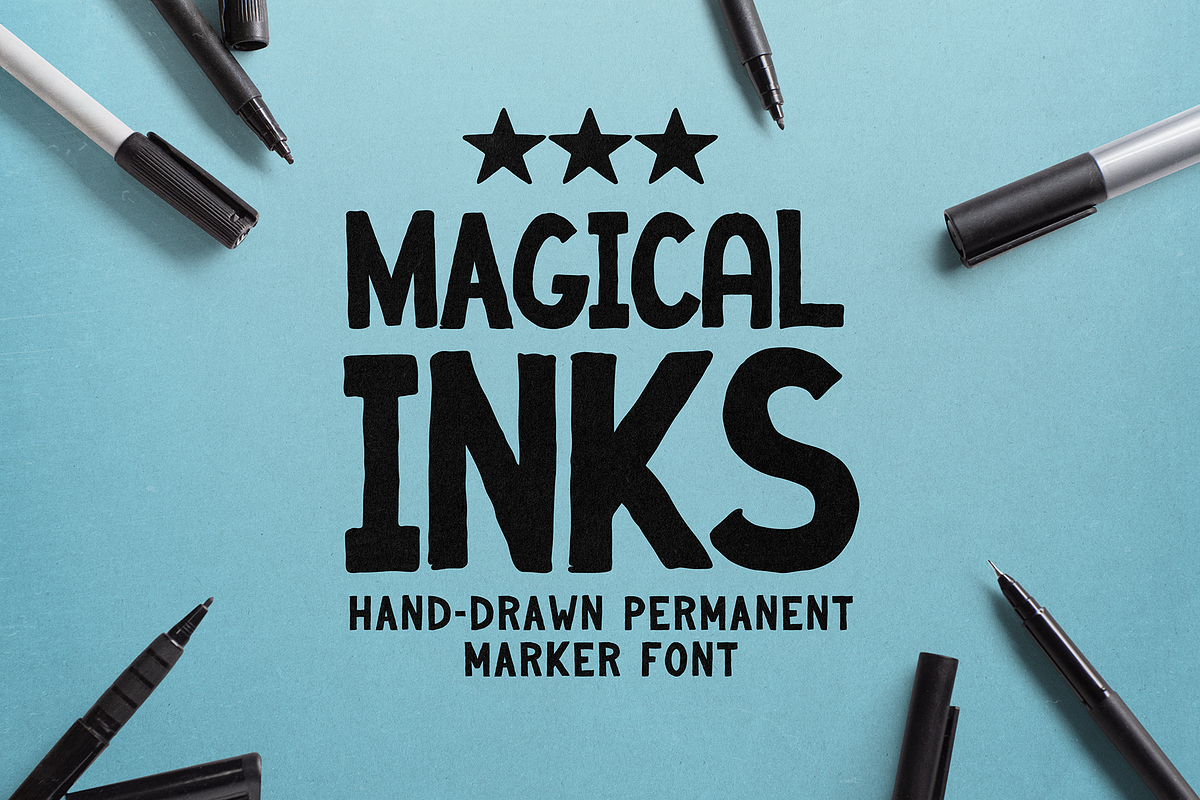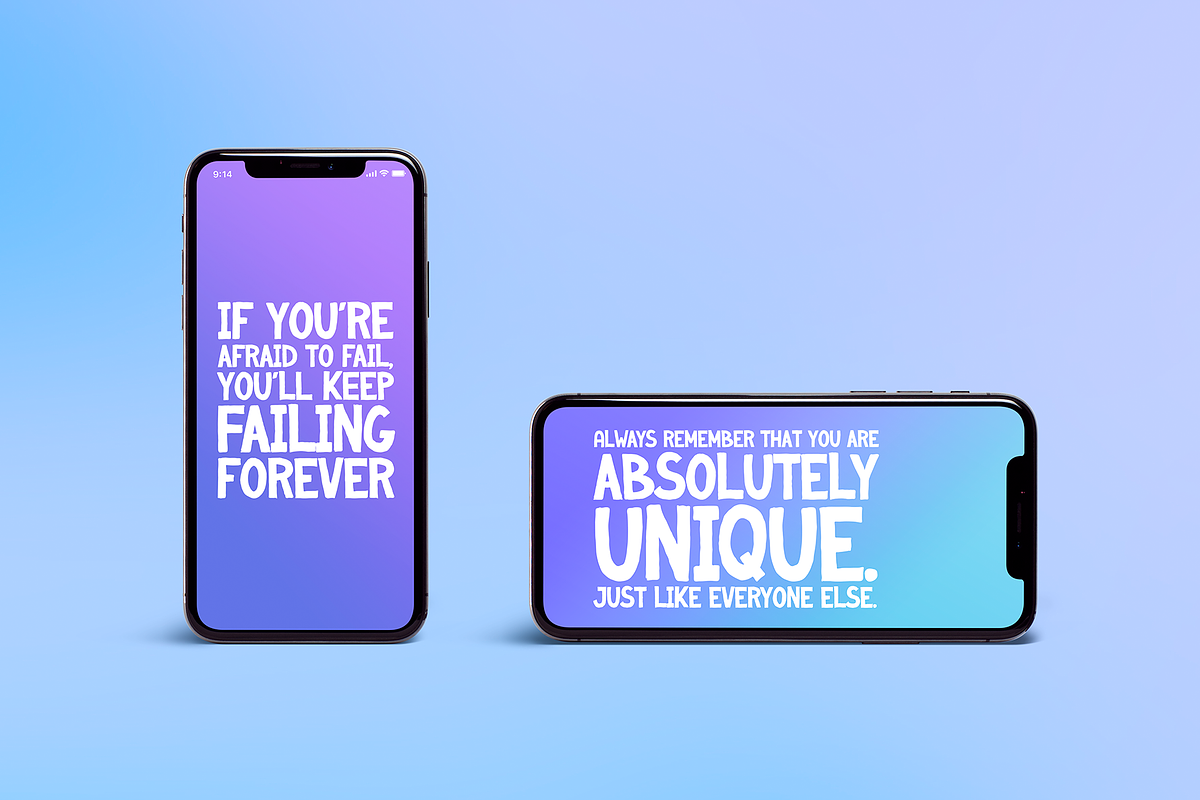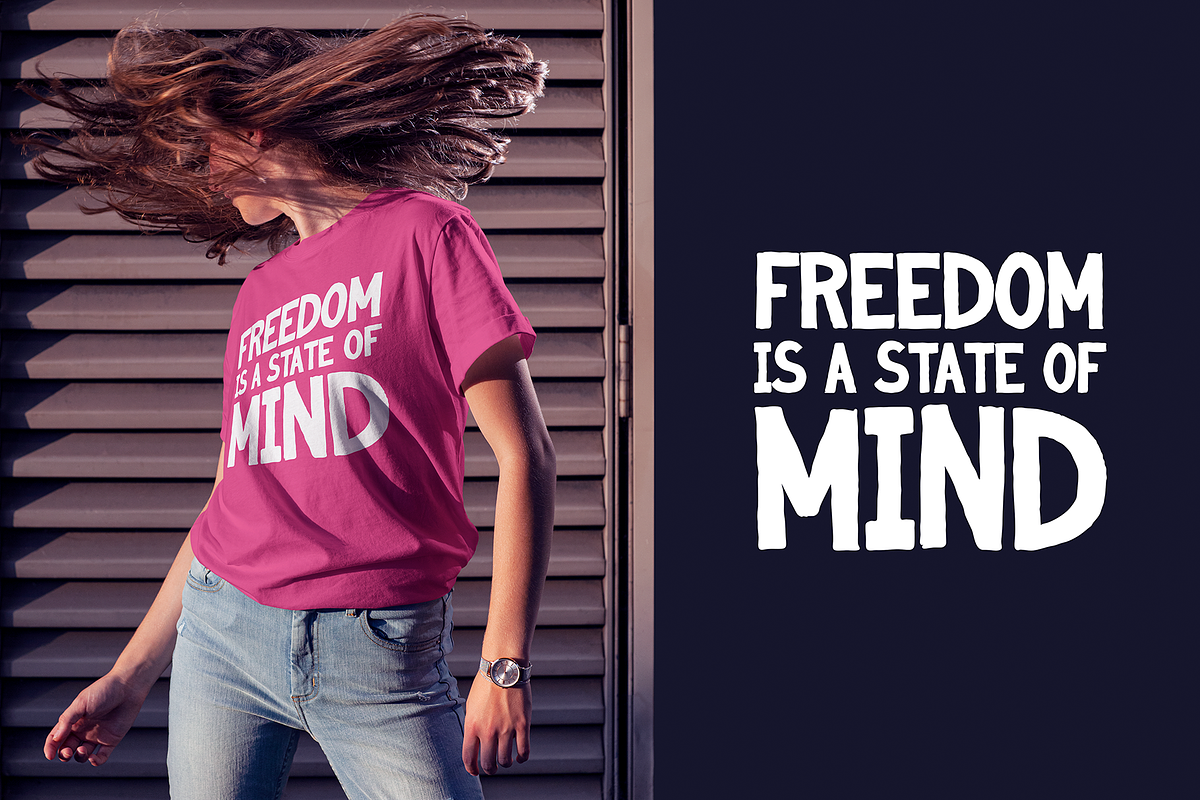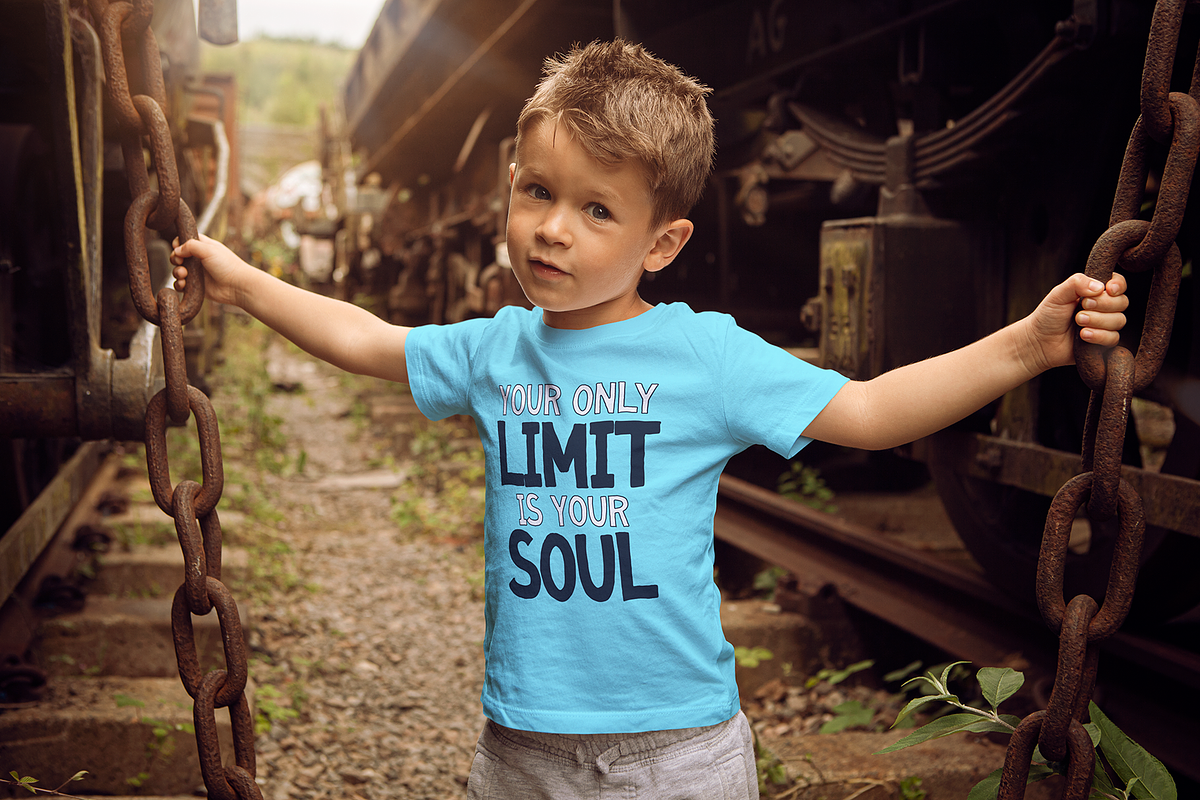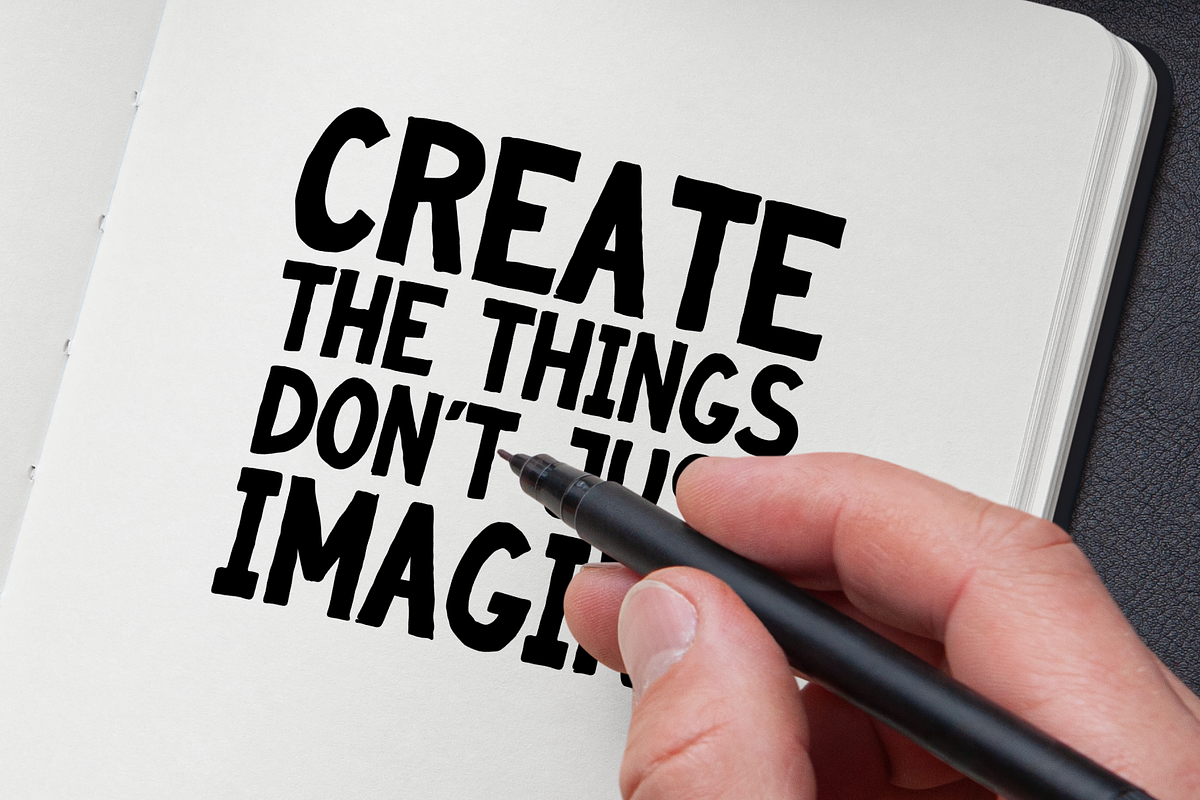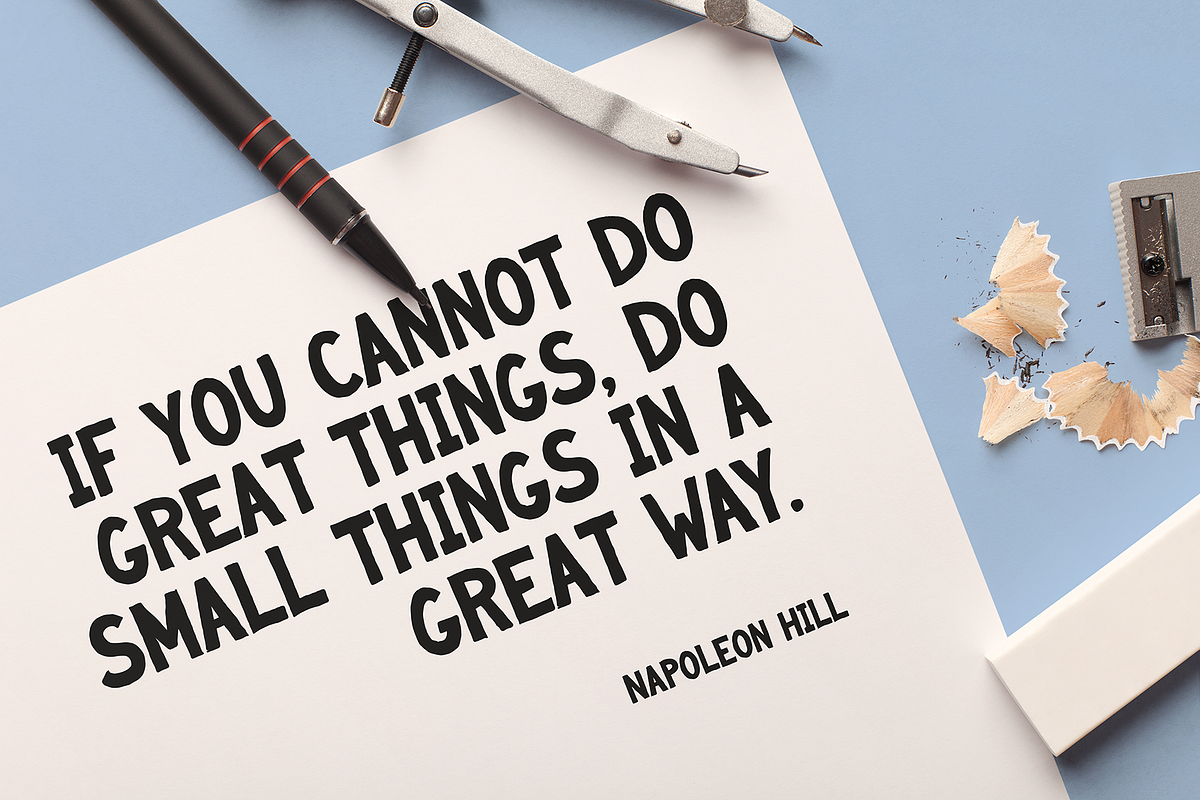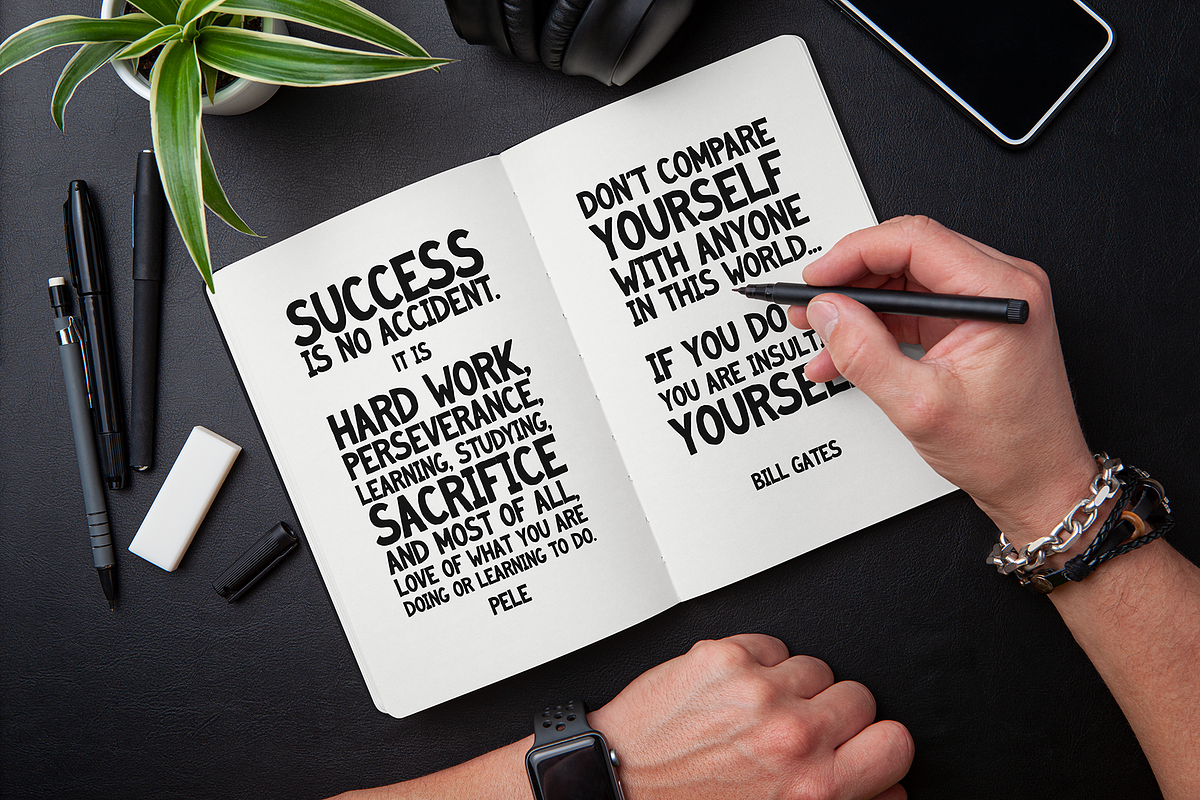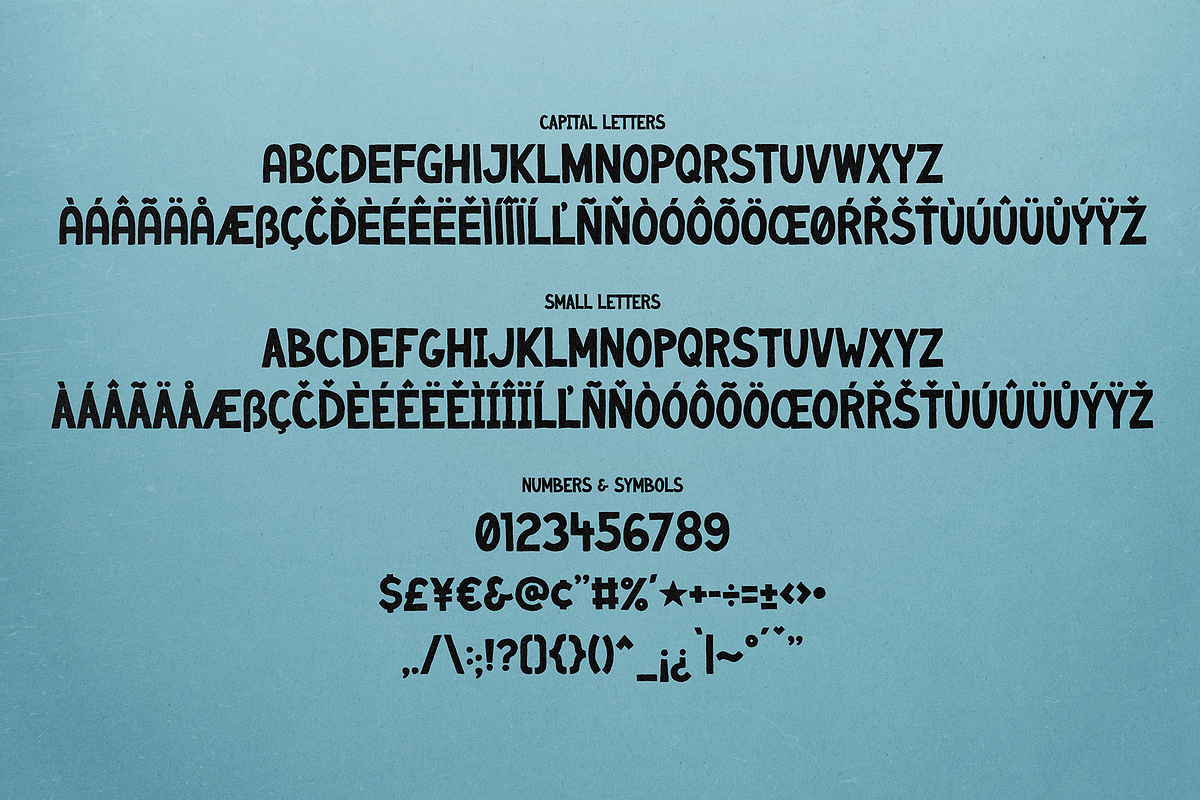
Magical Inks
Playful bold, chunky hand-drawn uppercase sans-serif font with 2 sets of capital letters, numbers and symbols great for headlines, quotes, banners, bilboards, logo designs, posters, flyers, craft, art projects, advertising etc. The download file also includes the template with paper background and marker pens around it (see cover image). You can change the background colour and text. Resolution 5000x3333px.